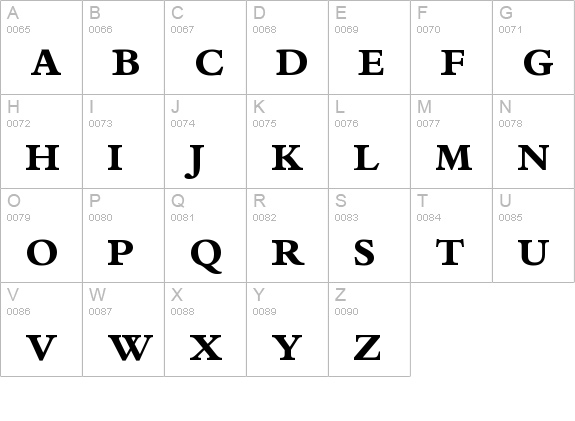
Kuriakos Black SSi Extra Bold is a maximum-weight, dramatic variant in the Kuriakos typeface family \xE2\x80\x94 well suited to maximum-impact headlines, posters, and packaging.
Kuriakos Black SSi Extra Bold font is a striking and commanding typeface that demands attention with its bold and powerful presence. The thick strokes and sharp angles give this font a modern and edgy look, making it perfect for headlines, posters, and other design projects that require a strong visual impact. What's even better is that Kuriakos Black SSi Extra Bold font is available for free download at FontsMarket.com. This means that you can easily access and use this impressive font in your creative projects without any cost. Whether you're a professional designer looking for a versatile and eye-catching typeface or a hobbyist designer exploring new fonts, Kuriakos Black SSi Extra Bold font is a fantastic choice that won't break the bank. Download it today and unleash the power of this bold and dynamic font in your designs.